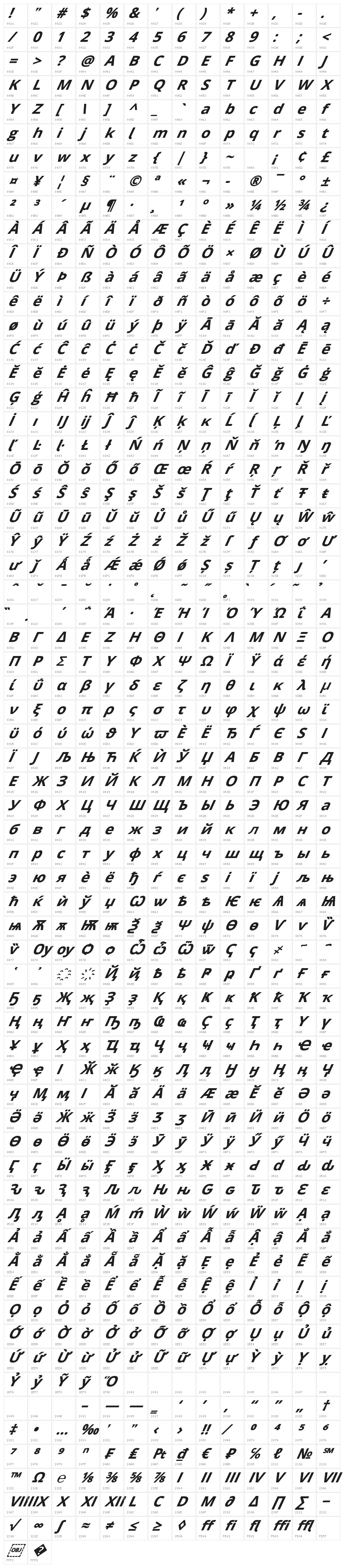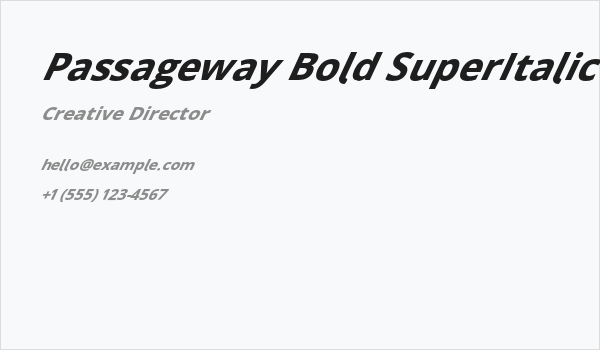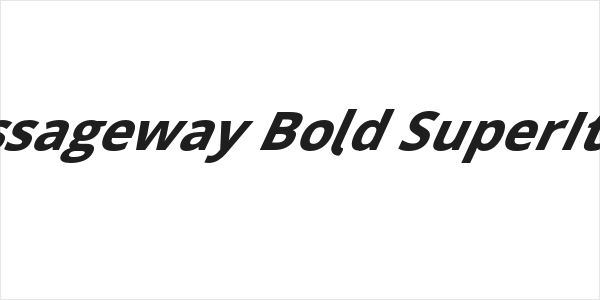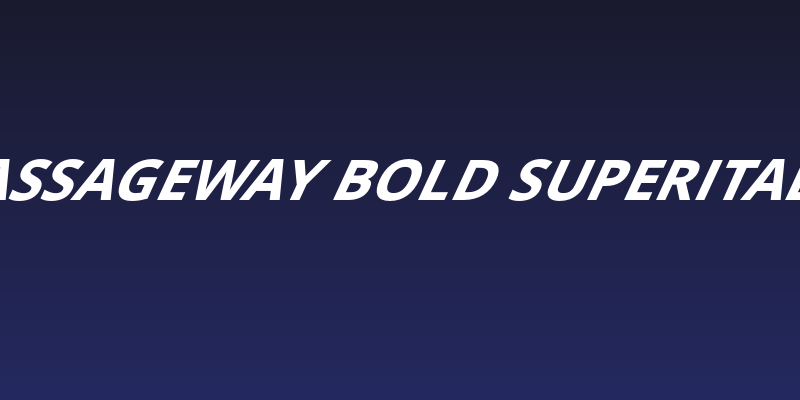
Passageway Bold SuperItalic Font
Passageway Bold SuperItalic Description
This font features a bold and dynamic style with a pronounced italic slant, giving it a sense of movement and urgency. The characters are robust and well-defined, with a consistent stroke width that enhances readability while maintaining a strong visual impact. The uppercase letters are slightly taller than average, contributing to a commanding presence, while the lowercase letters are well-proportioned, ensuring legibility. The numerals are clear and distinct, making them suitable for various applications. Special characters are included, maintaining the same bold and italicized characteristics, ensuring consistency across all glyphs.
| Use Case | Headlines, Logos, Advertising |
| Proposed Projects | Ideal for branding, advertising, headlines, and any project requiring a bold and impactful typeface. |